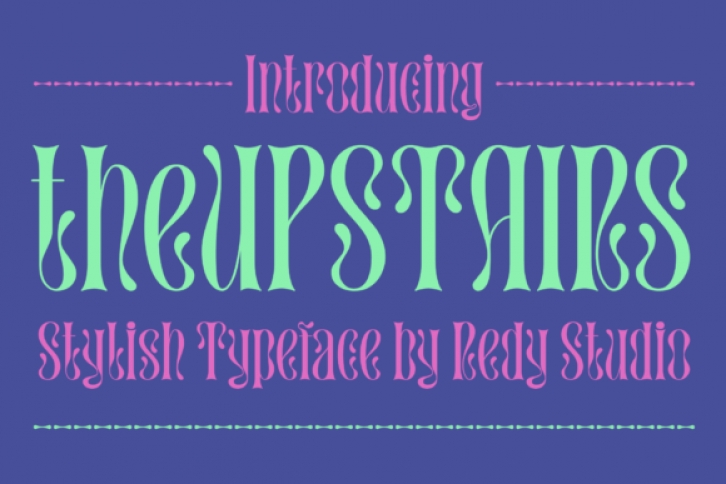
TheUpstairs is a cool, wavy and incredibly unique display font. Masterfully designed to become a true favorite, this font has the potential to bring each of your creative ideas to the highest level!